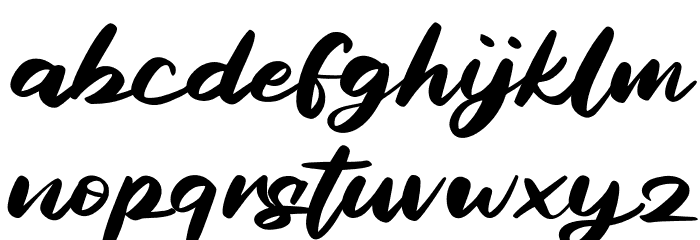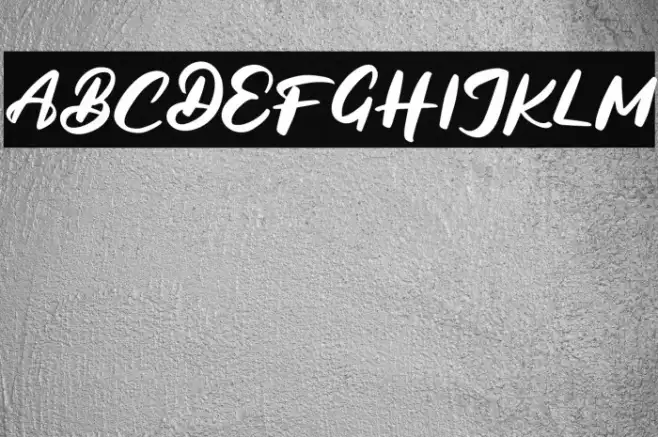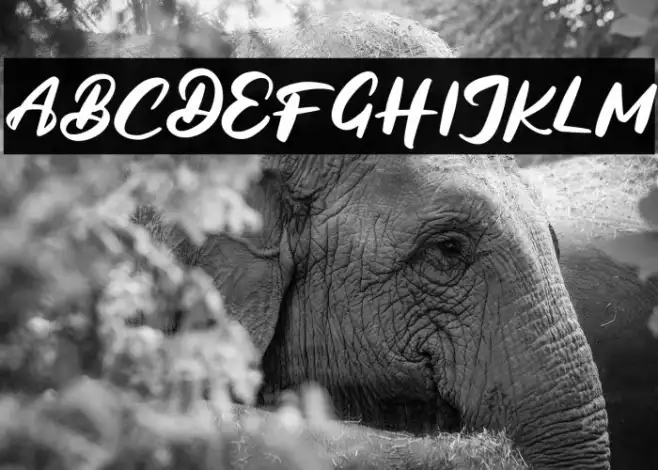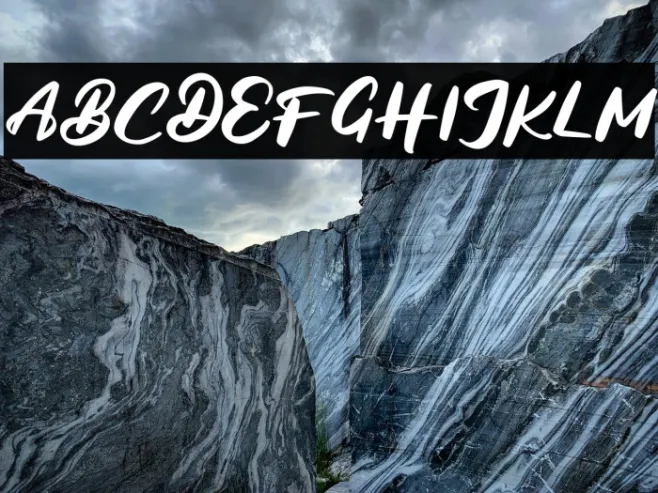
BagideFREE Font
This font features a bold, flowing script style that exudes a sense of elegance and dynamism. The characters are interconnected with smooth, sweeping curves, giving it a handwritten appearance. The uppercase letters are slightly more structured, while the lowercase letters maintain a consistent fluidity. The font's bold weight and medium contrast between thick and thin strokes make it highly legible and visually striking. It is well-suited for creating impactful headlines, logos, and branding materials that require a touch of sophistication and flair.
A bold, flowing script font with elegant, interconnected characters.
- Font: BagideFREE
- Proposed Projects: Ideal for branding, logos, wedding invitations, and elegant packaging designs.
- Category: Script
- Overall Style: Elegant, Dynamic
- Use Case: Headlines, Logos, Branding